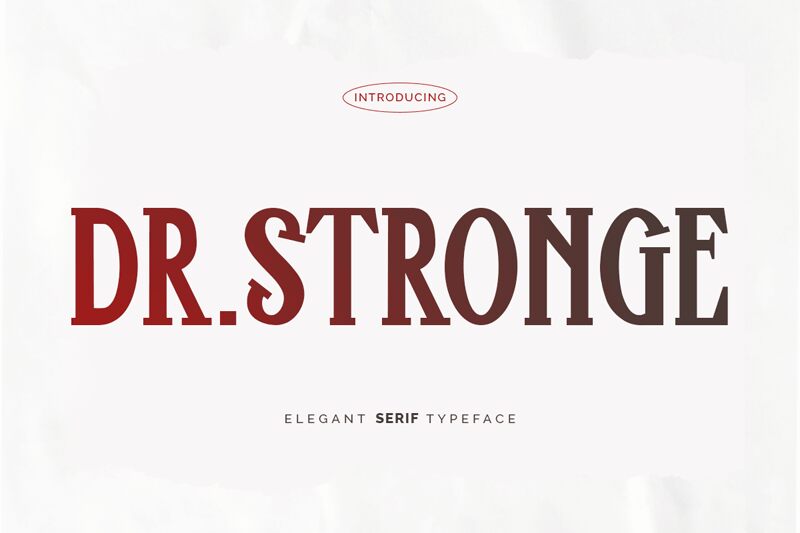
Dr.Stronge
Dr. Stronge font, designed by Kong Font, is a vintage-inspired condensed serif font that blends theatrical and artistic elements to create a truly distinctive design. Both small and tall letters display ornate details with whimsical flair alongside elaborate and enormous swashes for absolute originality. Use it to tell stories in books and comics or to add an authentic look to greeting cards.
Expand your designs to include business cards as well as typography art posters, labels for items like honey and olive oil jars, blogs, social media pages, etc. With unwavering confidence in every letterform it offers, this typeface will excel at making your projects impressive!